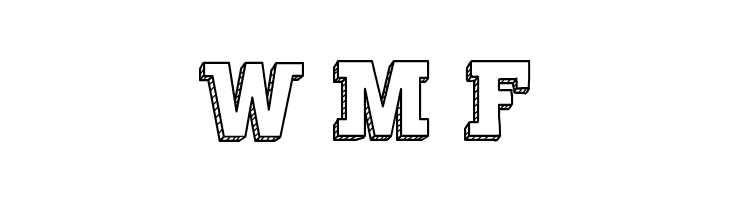
( Fonts by Galdino Otten )
A bold, three-dimensional font with a playful shadow effect and textured interior.
A bold, textured font with a cracked, rock-like appearance, perfect for impactful designs.
A bold, textured font with a cracked stone appearance and shadow effect.
( Fonts by Chequered Ink )
A bold, dynamic font with exaggerated, angular shapes and varying line thicknesses.
( Fonts by Tomasz Skowroński )
A playful, hand-drawn font with bold, dynamic strokes and a felt-tip pen style.
( Fonts by Darrell Flood )
A playful, bubbly font with a bold, hand-drawn appearance.